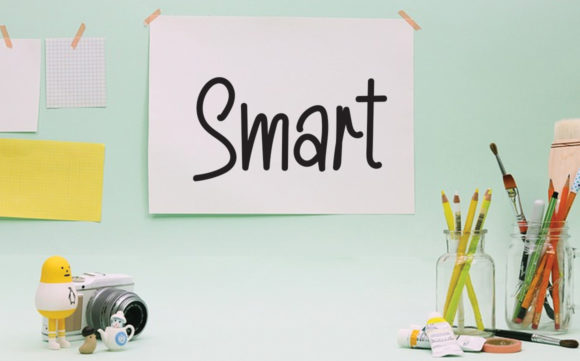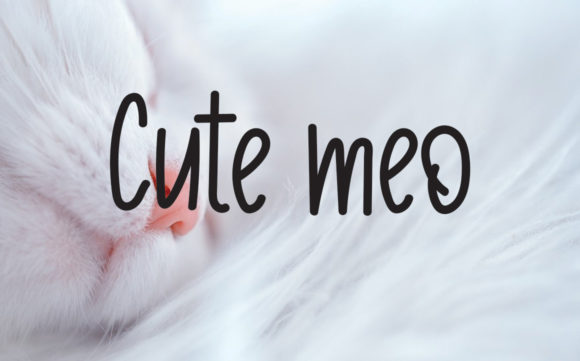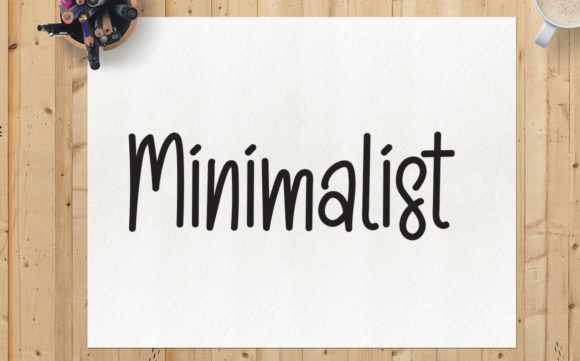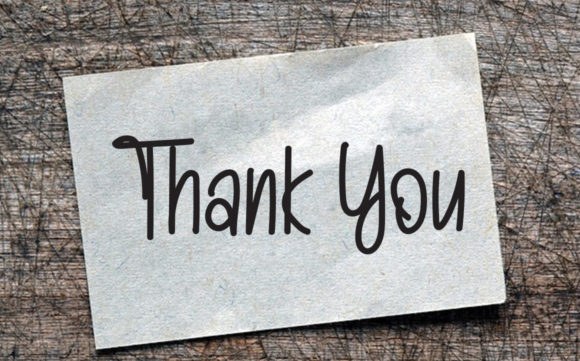
Sunday Funday Font
About Sunday Funday Font
Sunday Funday is a dainty handwritten font featuring a delicate flow. Use it for wall displays, wedding invitations, social media post logos,
advertisements, product packaging, product designs, labels, photography, watermarks, invitations, stationery, and any project that requires impressive typography.